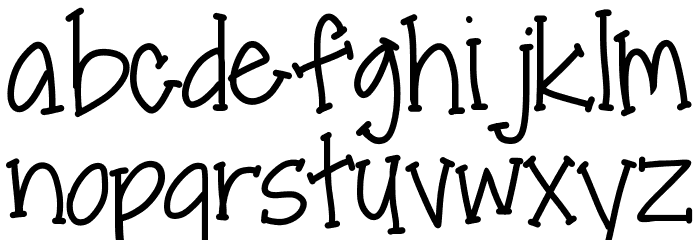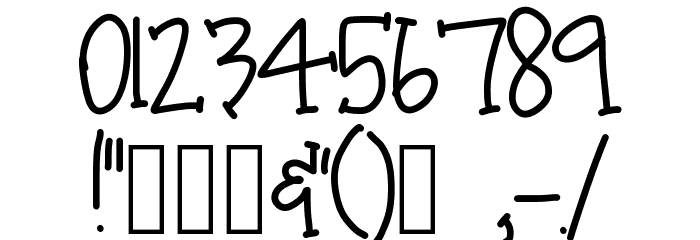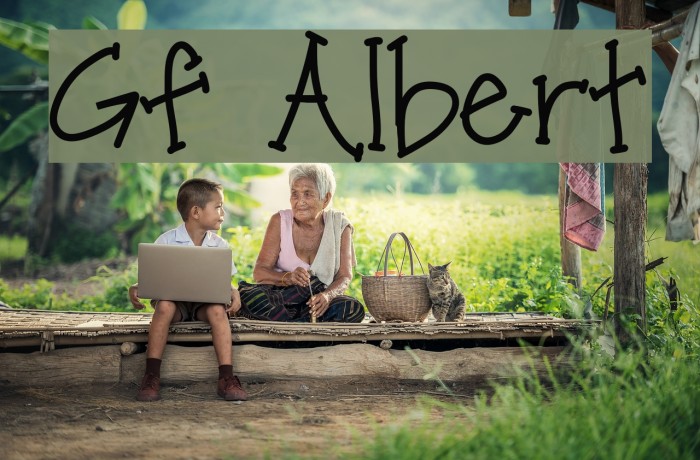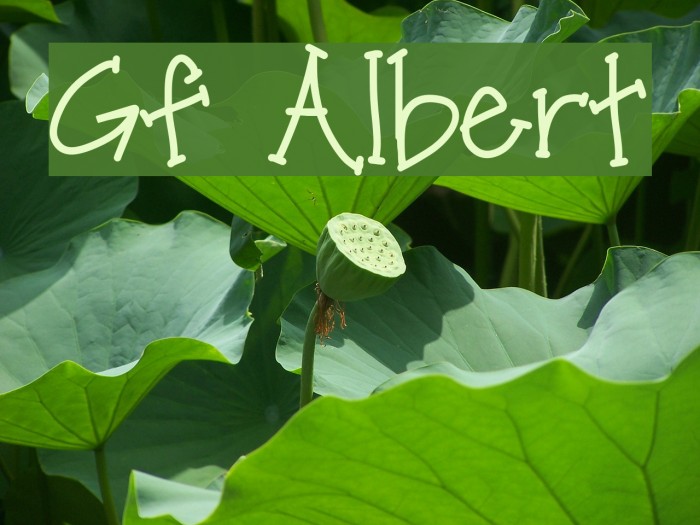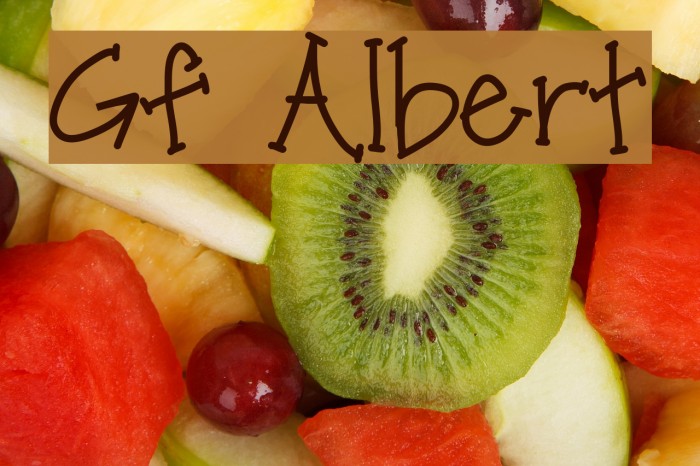
Gf Albert Font
This playful and whimsical font features a handwritten style with irregular, slightly tilted characters that give it a casual and friendly appearance. The strokes are uneven, adding to its informal charm, while maintaining legibility. The uppercase letters are bold and slightly larger than the lowercase, which are more rounded and softer in appearance. Numbers and special characters follow the same playful style, making this font suitable for creative and informal projects.
A playful, handwritten font with a casual and whimsical style.
- Proposed Projects: Ideal for children's books, greeting cards, playful branding, and casual invitations.
- Category: Handwritten
- Overall Style: Casual, Playful
- Use Case: Headlines, Informal text, Creative projects